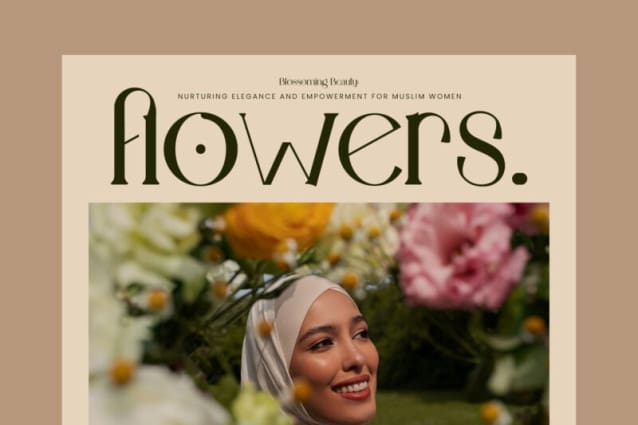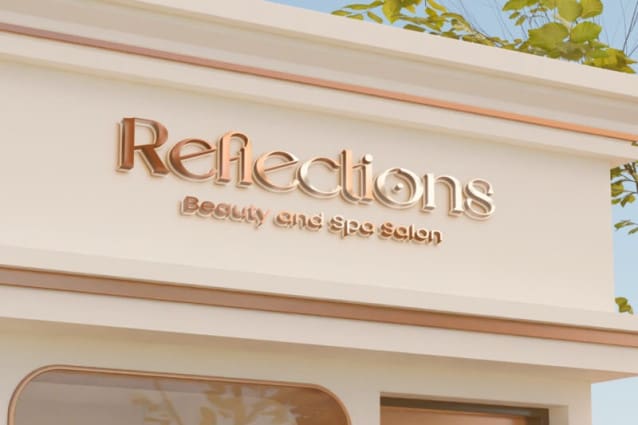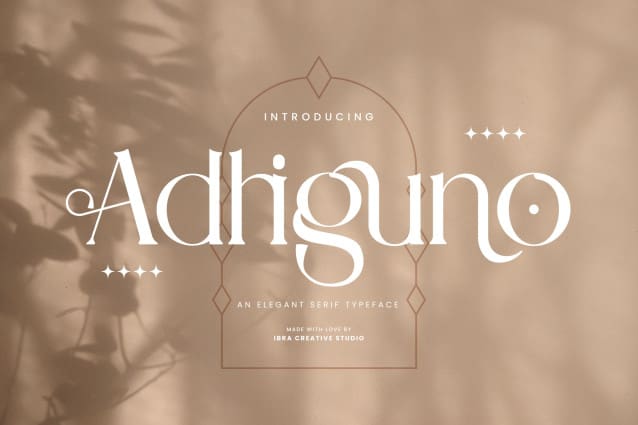
Adhiguno Font
Adhiguno Font, an elegant serif typeface, exudes sophistication and timeless charm with its meticulous design. Its graceful serifs are crafted with precision, striking a harmonious balance between classic and contemporary aesthetics. The letterforms boast a refined elegance, characterized by well-proportioned strokes and subtle details that enhance readability and visual appeal. Adhiguno’s versatility shines through, making it suitable for a range of design applications, from editorial layouts to branding. The typeface’s graceful curves and distinctive serifs contribute to a sense of professionalism, making it an ideal choice for projects that demand a touch of refined and sophisticated typography.